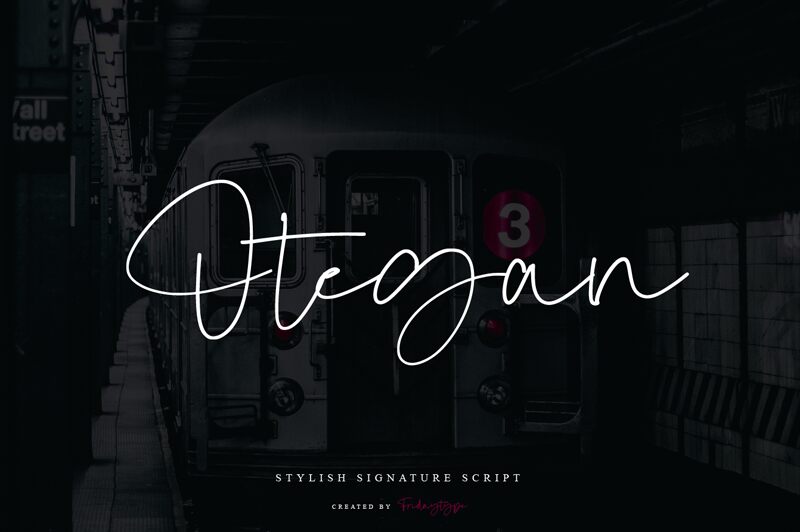
Otegan Signature Script font is a quality signature typeface designed by Farida Kurniawan of Fridaytype.
Otegan - Stylish Signature Script is the great choice for watermark on photography, signature logo, cover book, packaging, business card, and website.